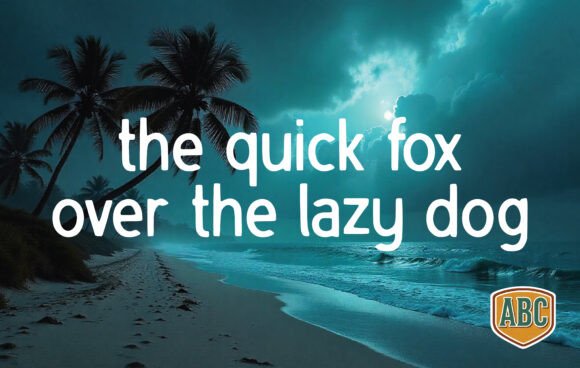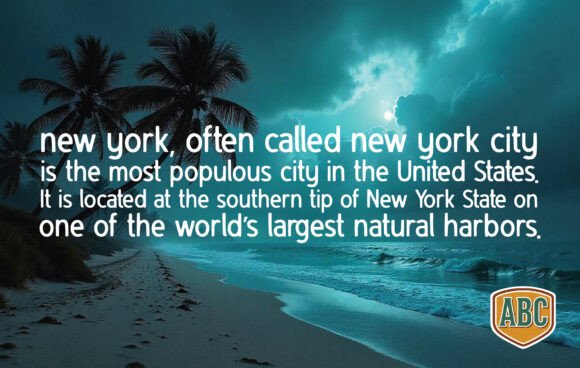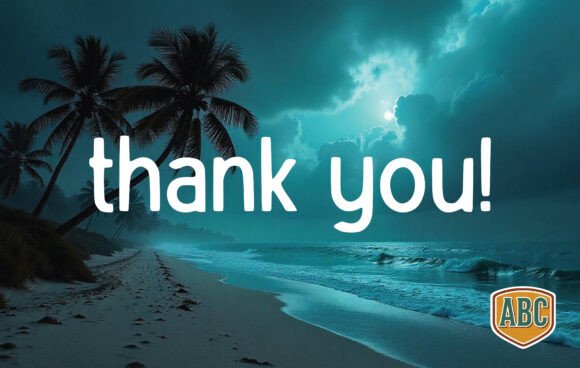
Discover the Timeless Elegance of Florida Font: Elevate Your Designs with a Lovely Sans Serif Typeface
Are you on the hunt for a font that exudes elegance, sophistication, and a touch of timeless charm? Look no further than the Florida Font, a stunning sans serif typeface that’s perfect for creating eye-catching logos, branding, quotes, and more. With its unique and beautiful touch, this font is sure to make your designs come alive!
The Perfect Choice for Designers and Crafters
Florida Font is an exceptional choice for designers and crafters who want to add a touch of class and sophistication to their work. Whether you’re creating wedding stationery, journals, greeting cards, product packaging, or social media designs, this font is sure to impress. Its versatility and legibility make it an ideal choice for a wide range of design projects.
What Makes Florida Font So Special?
So, what sets Florida Font apart from other sans serif fonts? Here are just a few of its standout features:
- Unique and Beautiful Touch: Every letter in Florida Font has been carefully crafted to have a unique and beautiful touch, making it perfect for designs that require a personal and elegant feel.
- Timeless Elegance: Florida Font has a timeless quality that ensures it will never go out of style. Its classic sans serif design makes it perfect for creating designs that are both modern and sophisticated.
- Highly Legible: Florida Font is highly legible, even at small sizes, making it perfect for use in a wide range of design applications, from body text to headings and titles.
- Versatile: Florida Font is an incredibly versatile font that can be used in a wide range of design projects, from print to digital.
Use Florida Font to Elevate Your Designs
Florida Font is the perfect choice for designers and crafters who want to elevate their designs and add a touch of elegance and sophistication. Here are just a few ideas for using Florida Font in your designs:
- Wedding Stationery: Create beautiful wedding stationery, including invitations, save-the-dates, and thank-you cards, with Florida Font.
- Journals and Planners: Use Florida Font to create stunning journals and planners that are both functional and beautiful.
- Greeting Cards: Create eye-catching greeting cards for special occasions, such as birthdays, holidays, and anniversaries.
- Product Packaging: Use Florida Font to create beautiful product packaging that stands out on store shelves.
- Social Media Designs: Elevate your social media designs with Florida Font, including graphics, quotes, and more.
Tips for Using Florida Font
Here are a few tips for getting the most out of Florida Font:
- Experiment with Font Sizes: Florida Font is highly legible, even at small sizes, so don’t be afraid to experiment with different font sizes to find the one that works best for your design.
- Pair with Other Fonts: Florida Font pairs beautifully with other fonts, so try combining it with a serif font for a classic look or a script font for a more elegant feel.
- Use it for Headings and Titles: Florida Font is perfect for use in headings and titles, where its elegant and sophisticated feel can really shine.
In conclusion, Florida Font is a stunning sans serif typeface that’s perfect for designers and crafters who want to add a touch of elegance and sophistication to their work. With its unique and beautiful touch, timeless elegance, and high legibility, this font is sure to make your designs come alive! So why wait? Try Florida Font today and elevate your designs to the next level!
| Font Name | Florida Font |